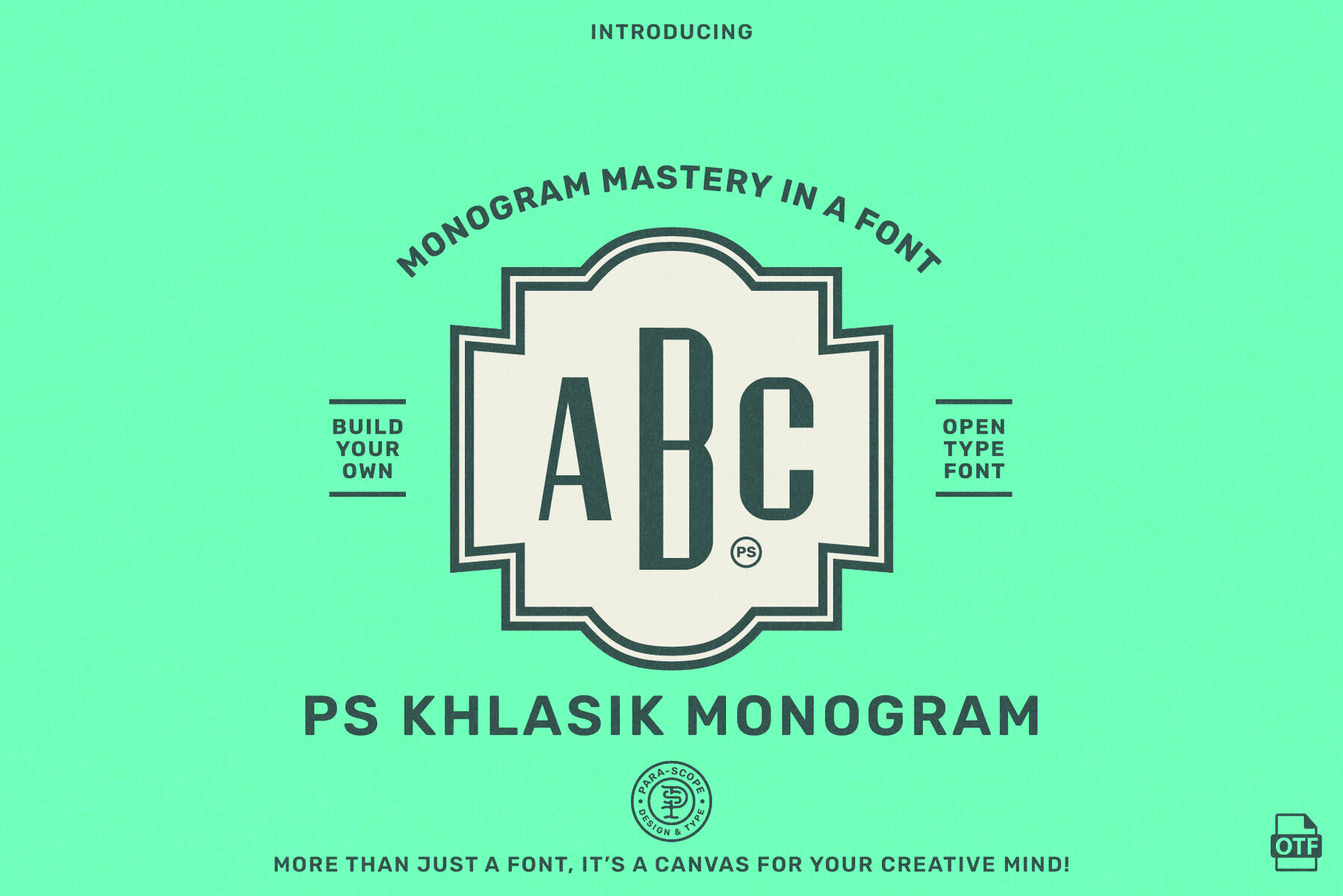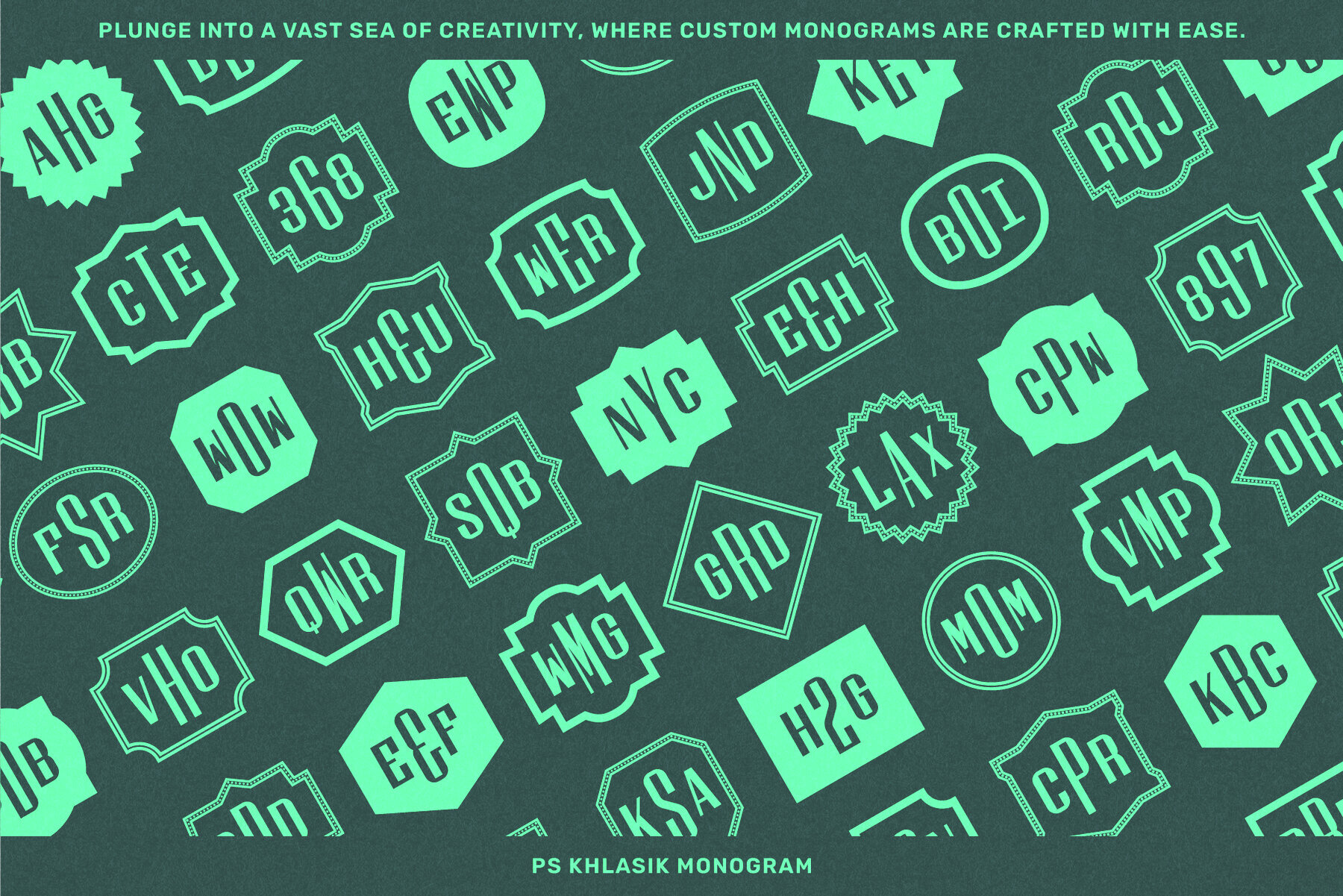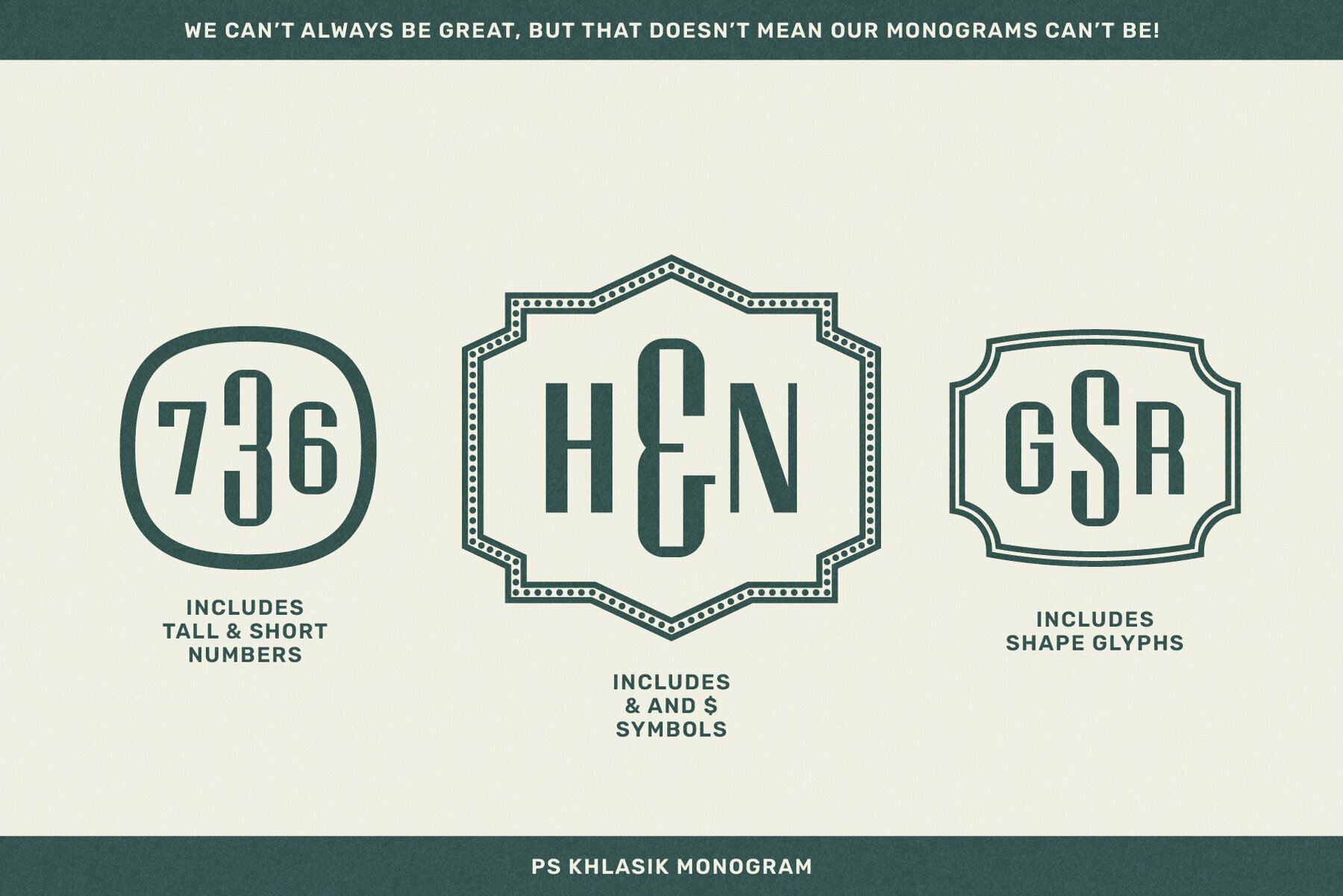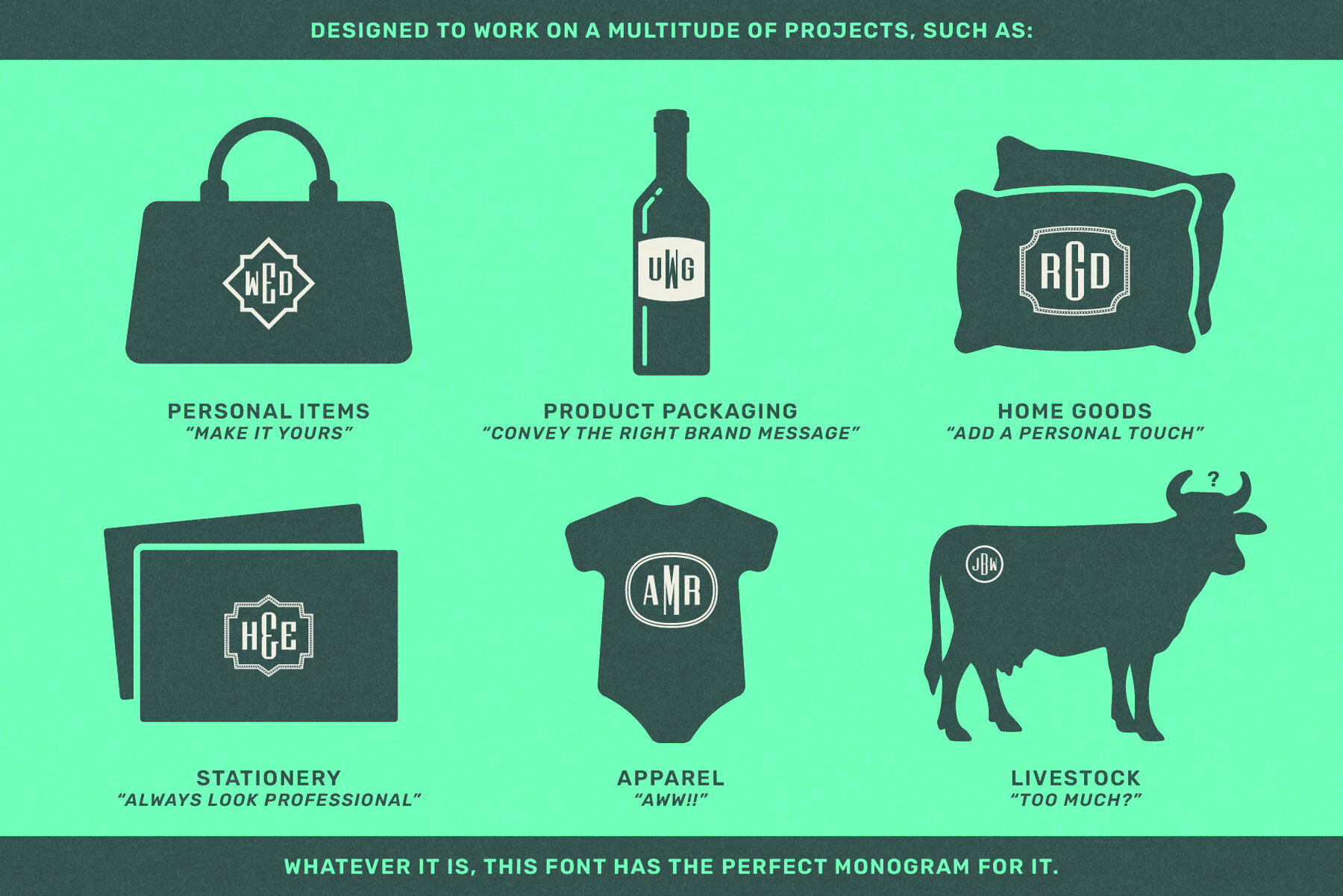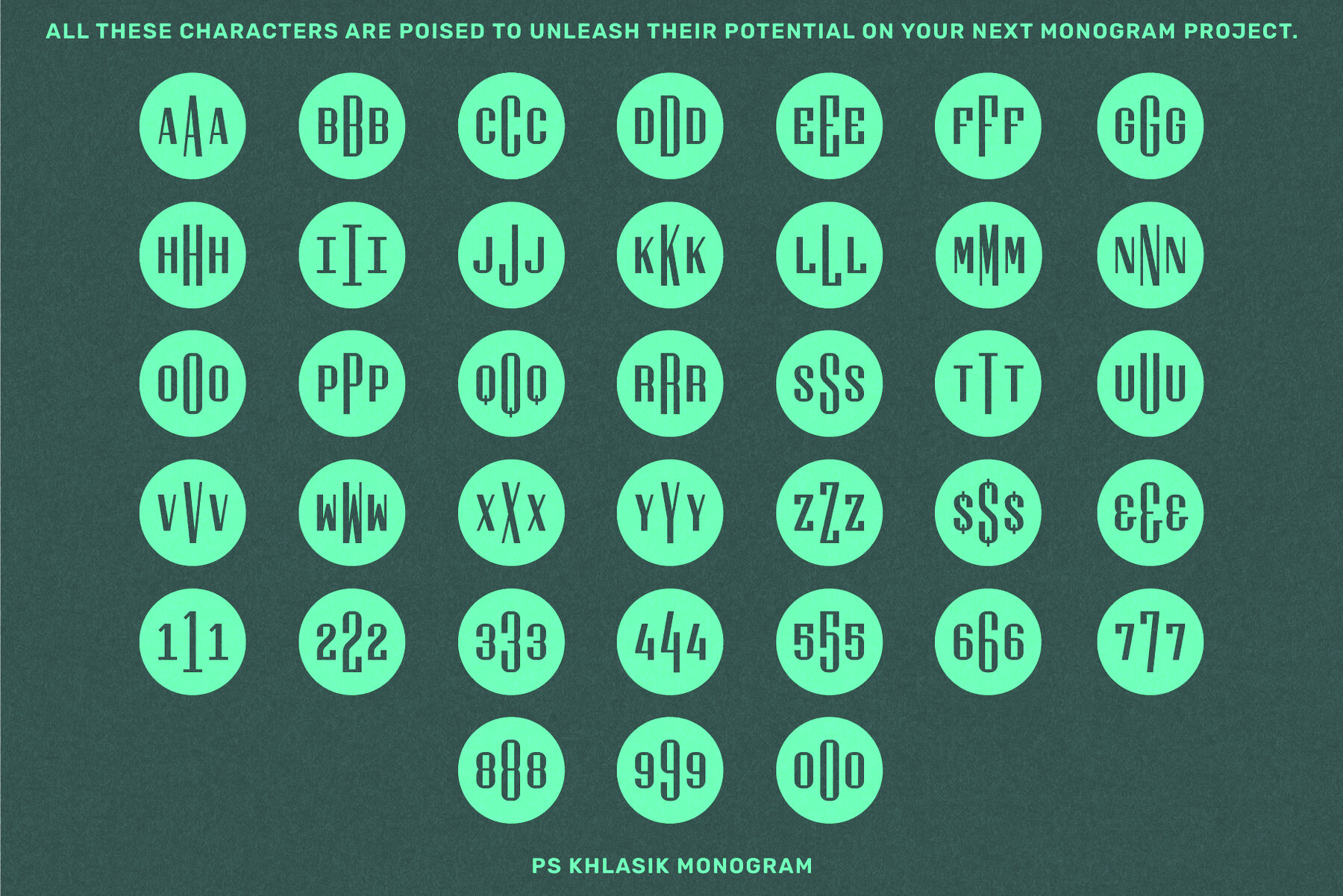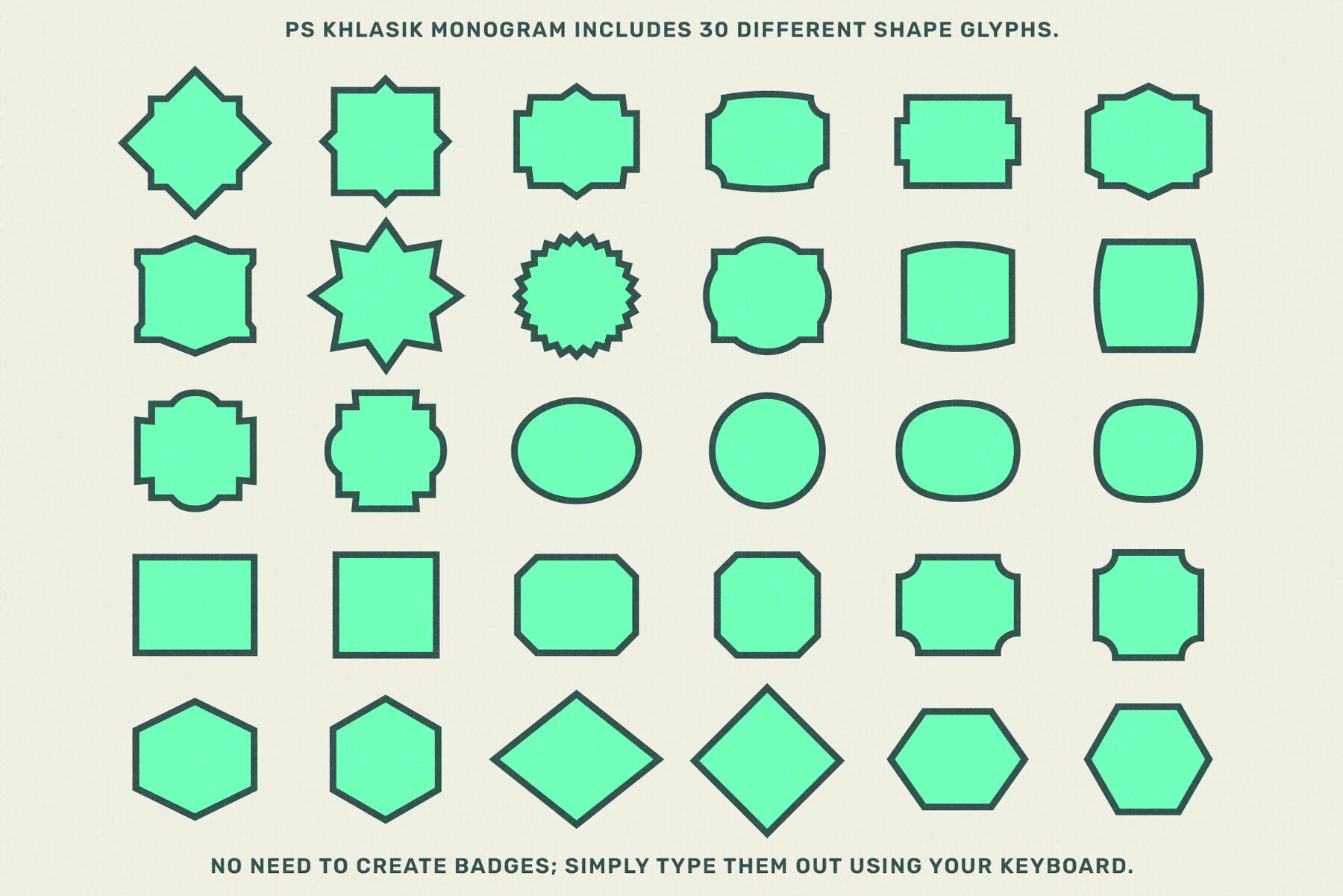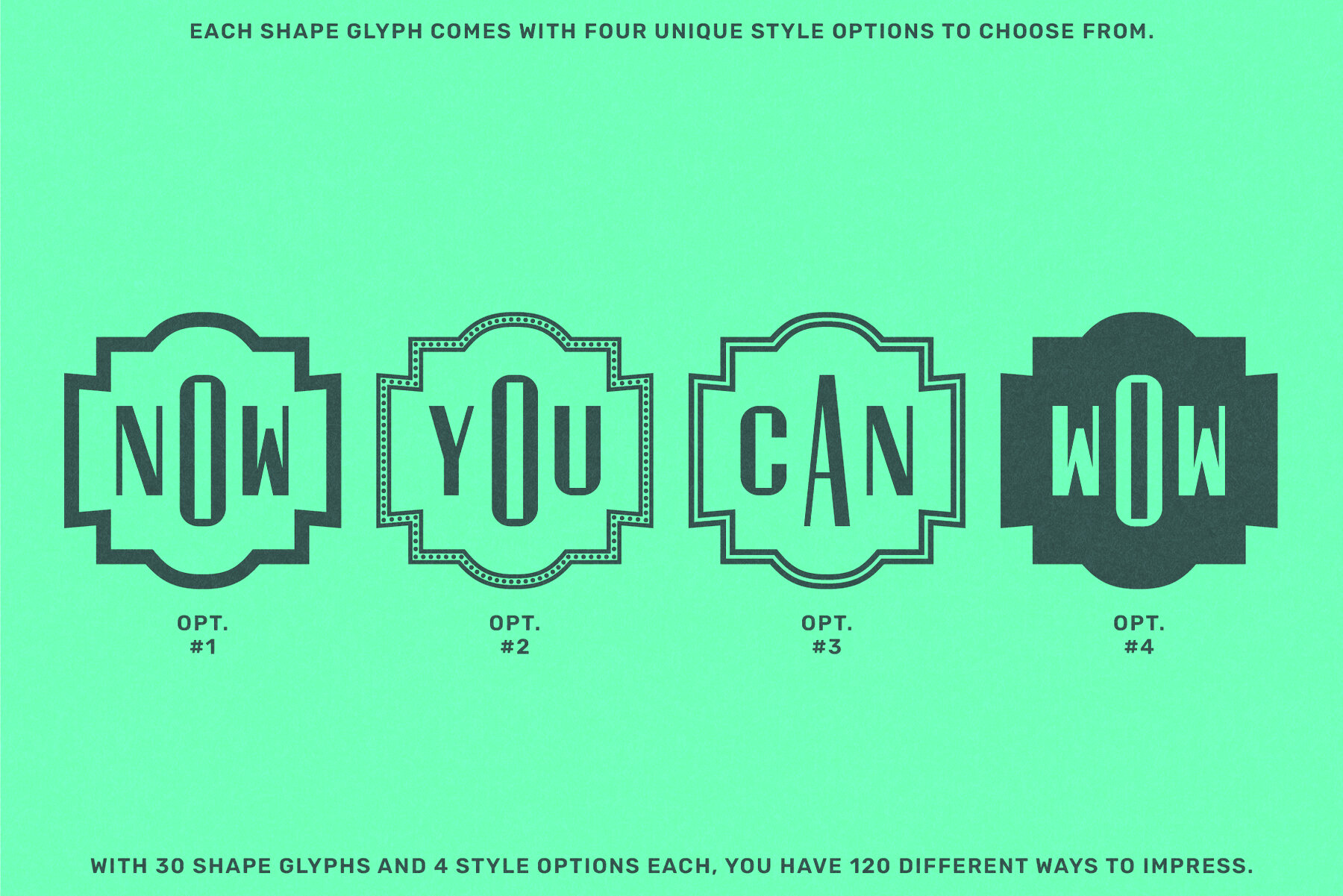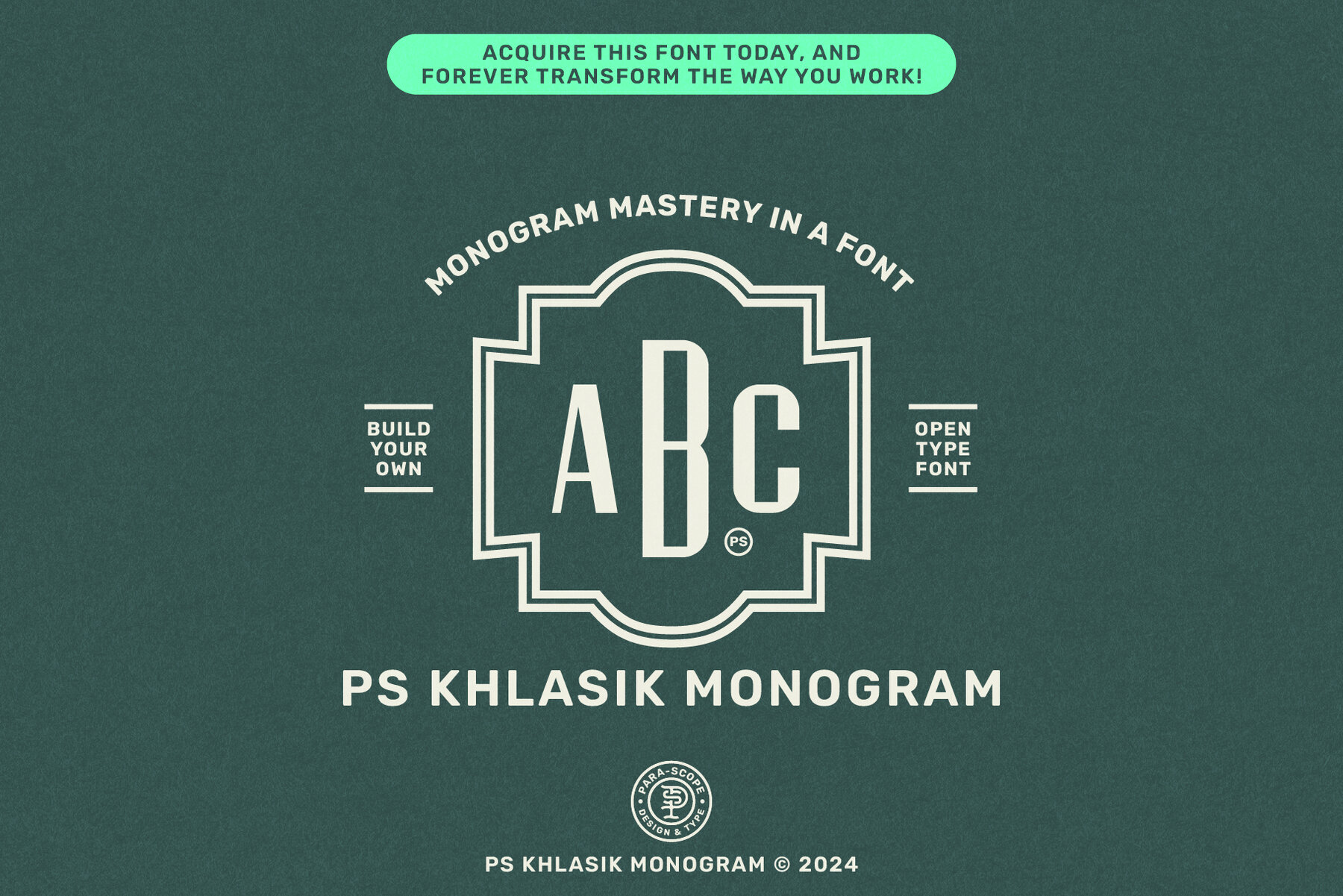
Check this out, my fellow creative. With just a few keyboard clicks, you can create personalized, high-quality monograms in seconds without the hassle of building each letter individually. Simply type out your desired three letters in the order of lowercase, uppercase, lowercase. Want to add a badge shape? Choose from thirty included shape glyphs accessible directly from your keyboard. It’s that easy! No matter your skill level, this font unleashes your creativity like never before. With PS Khlasik Monogram, you'll feel a deep sense of satisfaction as you effortlessly craft your own personalized, top-notch monograms. Its uniformly thick tall and short letters and complementary shape glyphs are meticulously designed to harmonize seamlessly, ensuring your work exudes excellence. Welcome to a new realm of creative expression! On top of all that, just think about the time you'll save! No more wasted hours on monogram mishaps. Spend less time having to build out letters and shapes, more time on what you love – being creative! Ready to give your next project the love and quality it deserves? Elevate your designs with PS Khlasik Monogram today and discover what you've been missing out on. You'll wonder how you ever made monograms without it! Try it before you buy it. Not sure if it's the right fit of letters for your monogram, just give it a try in the type tester. IMPORTANT NOTES: This font was designed with the explicit purpose of creating three-letter monograms and is not intended for conventional writing. Therefore, when typing symbols such as periods, commas, question marks, and so on, you will instead get shape glyphs that you can use to build your monograms. Lastly this font was designed for use in Adobe Illustrator or Photoshop and may not work in other programs such as Word etc. What's Included Compatible WithIntroducing PS Khlasik Monogram: Less Guessing, More Impressing!